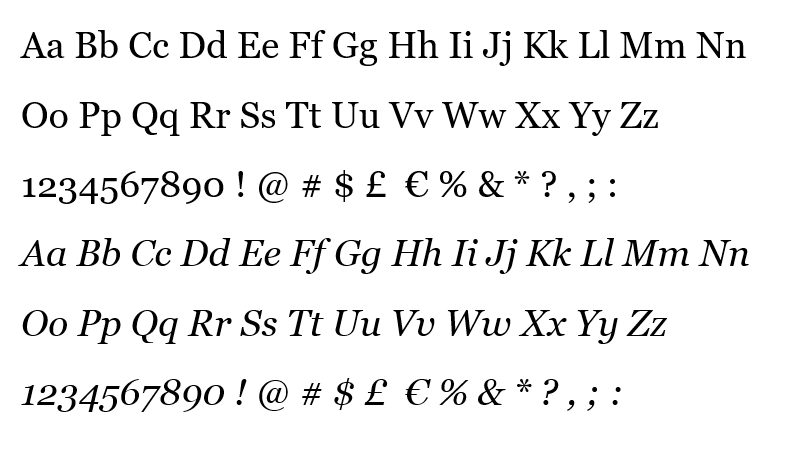
Although inspired by the need for - and providing - clarity at low resolutions on the screen, Georgia is a typeface resonant with typographic personality. Even at small sizes the face exudes a sense of friendliness; a feeling of intimacy many would argue has been eroded from Times New Roman through overuse. This is as much testament to the skill of the typeface's designer, Matthew Carter, as it is to any intrinsic quality of the face's design, since the small pixel spaces of the screen can be a harrowing canvas for any type designer. In Georgia, Carter has successfully managed to create a typeface family which combines high legibility with character and charm.
At high resolutions and larger sizes on screen, it's evident that Georgia's ancestry is essentially that of Didot and - most noticeably - of Scotch Roman. Carter acknowledges the influence of Richard Austin's early nineteenth-century cut of Scotch Roman on the design of his letterforms. At the time he started Georgia he had been working on a new retail family called Miller, which is a version of Scotch Roman. Carter admits that he had always admired Scotch, particularly in its early forms as cut by Richard Austin for Bell and Miller. The influence of the Scotch model on Georgia is most clearly seen in the horizontal top serifs of the lowercase b, d, h, k and l, and by the flat top of the lowercase t, a typographic allusion to the typeface's roots in Didot.
To create a font tailored for on-screen display, Carter had to make several departures from the Scotch mold. In Georgia, the uppercase characters are lightened, the x-height is increased, the ascenders rise above the cap height, and the numerals, often cut with a high degree of stress, have been evened out and made slightly non-aligning - a characteristic that imparts a flavor of individuality to any page set in Georgia.
Georgia's accompanying italic is a graceful, flowing font, the design of which entirely masks the difficulty of creating an italic for the screen. Unlike many contemporary fonts, it is a true italic, containing such characters as the single-story lowercase a and g. The bold weight of the typeface has been similarly carefully designed, to ensure that it is always heavier than the regular weight; an important consideration at small sizes on the screen, where it is often necessary to distinguish between the two.
Originally made available in September 1996, the Georgia typeface family was released in an extended version in October 1997. The newer releases contain all the characters necessary to typeset Eastern European languages, in addition to the Greek and Cyrillic scripts.
Version 2.00 - Georgia 2.00 which includes the euro, proper old-style figures and the full WGL4 character set was added to the Windows 98 update Web font pack in August 1998.
| Designers | Matthew Carter |